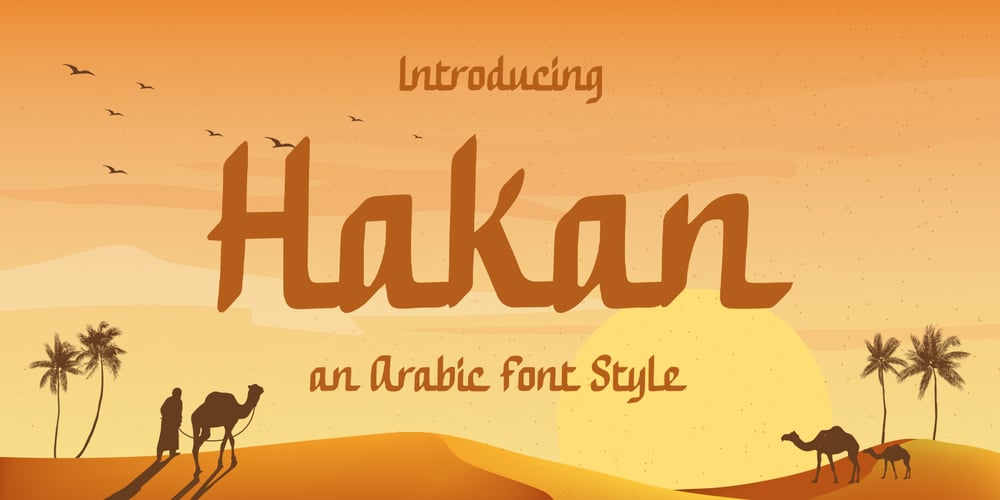
Hakan
Hakan font
Hakan Font Family was designed by Hilmius Akbar and published by Typefactory. Hakan contains 1 styles and family package options. Hakan is an modern display font with an Arabian look.This font particularly for those not native to Arabic languages.Hakan try to bring back the Baghdad and Alladin memories to your design or typography.The font suits creative titling on both web and print, perfect for scroll text. Well balanced letters make for readable blocks of copy or headings.